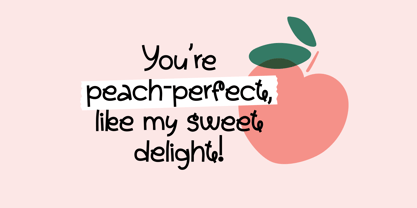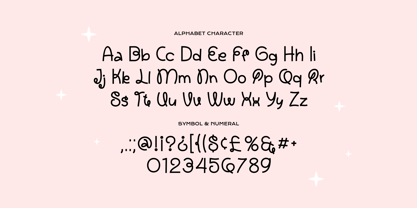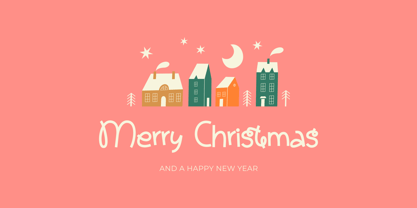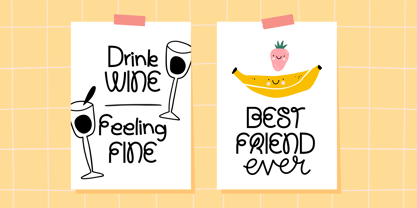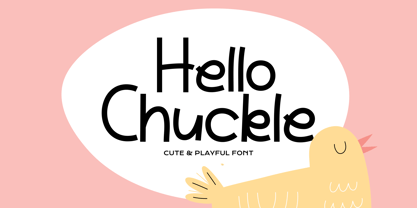
Hello Chuckle
by Imoodev
The Hello Chuckle Font Family was designed by Aulia Savira Putri and published by Imoodev. Hello Chuckle contains 1 styles. More about this family
Hello Chuckle is a cute and playful font, characterized by its rounded, uneven strokes. It evokes a sense of joy and friendly, making it perfect for children's or romantic design, such as greeting cards, fun branding, posters, children's books, and cheerful designs.
Designers: Aulia Savira Putri
Foundry: Imoodev